Hot Type
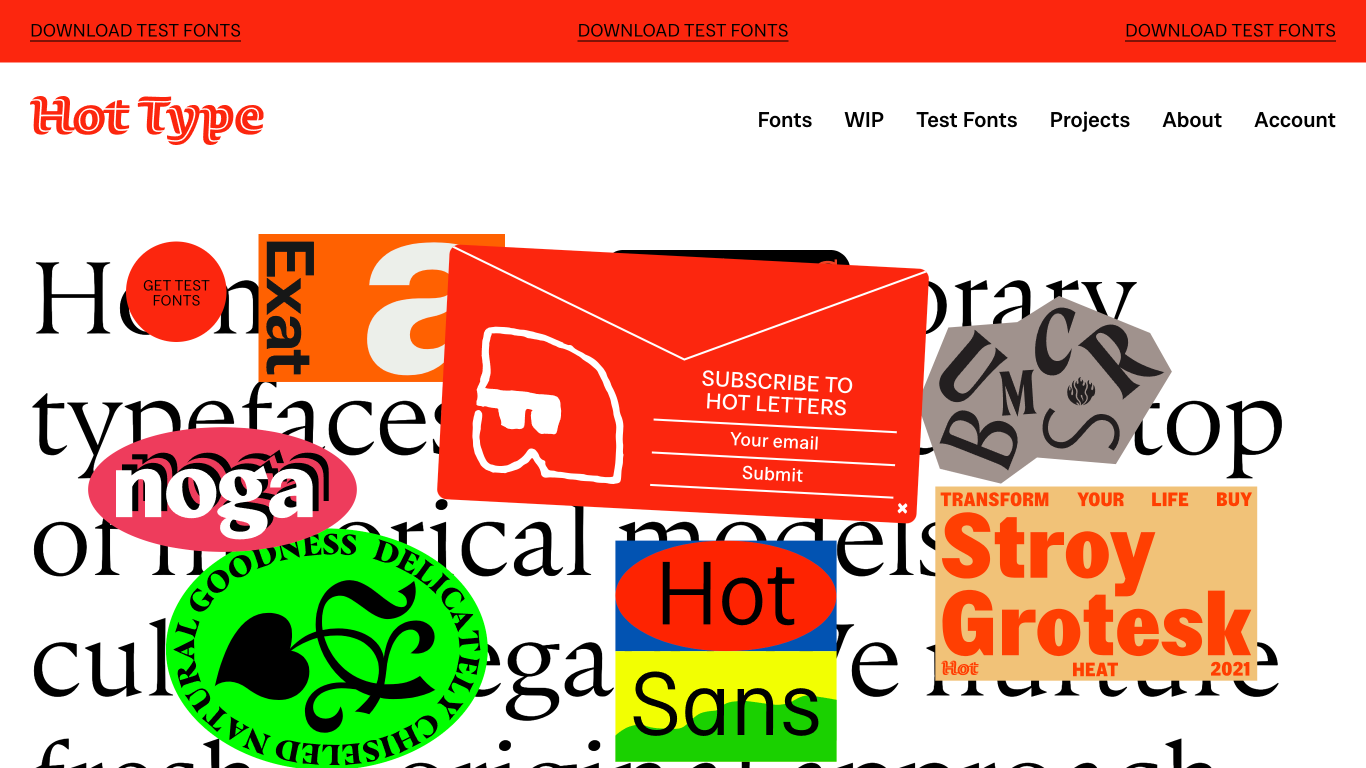
Croatia
2021
Hot Type, founded in 2021 by Croatian designer Marko Hrastovec, is a type foundry and design studio known for its refined retail fonts and custom commissions. Notable typefaces include Crumbs, Hot Sans, Punta, Stroy Grotesk, and Stroy Mono. The studio has crafted bespoke type for clients like Nike (including a custom Nike AIR typeface), and worked with brands such as the Louvre, Calvin Klein, L’Oréal, FutureBrand, Erste Bank, and 404 Design Studio. Hrastovec was named a TDC Ascender in 2022 for his contributions to type design.